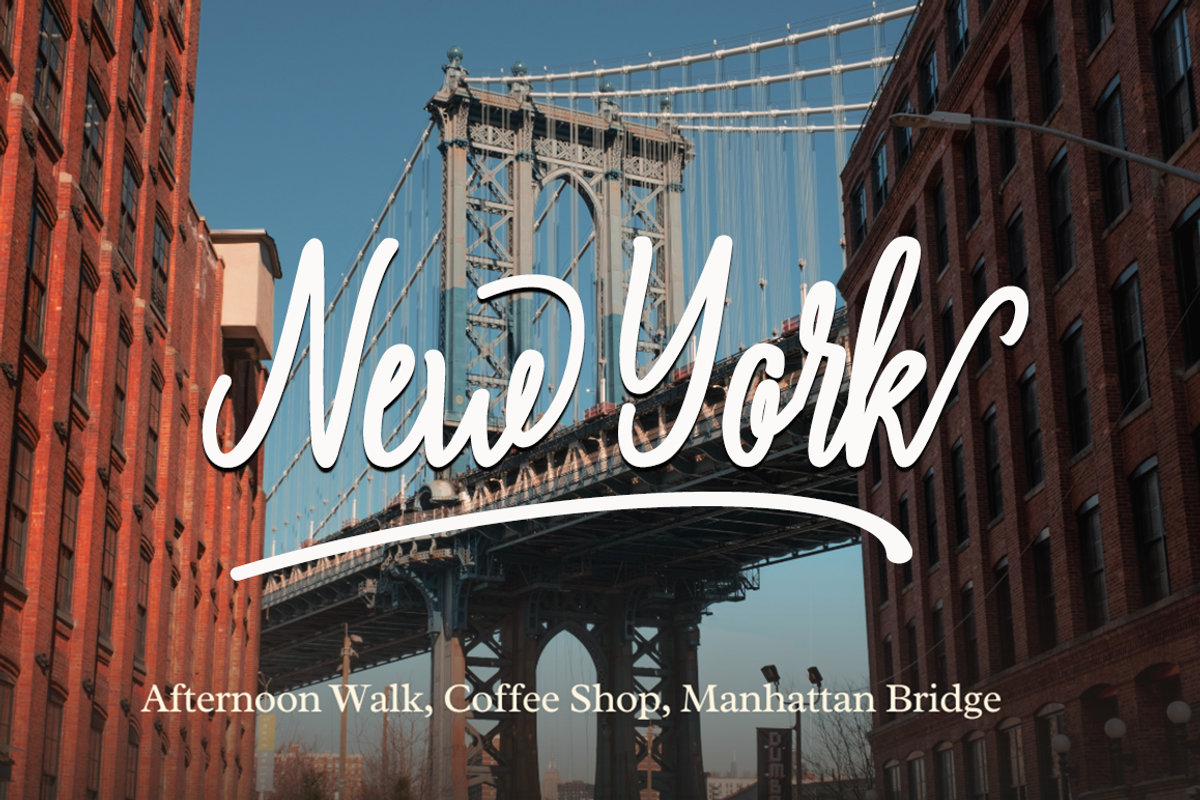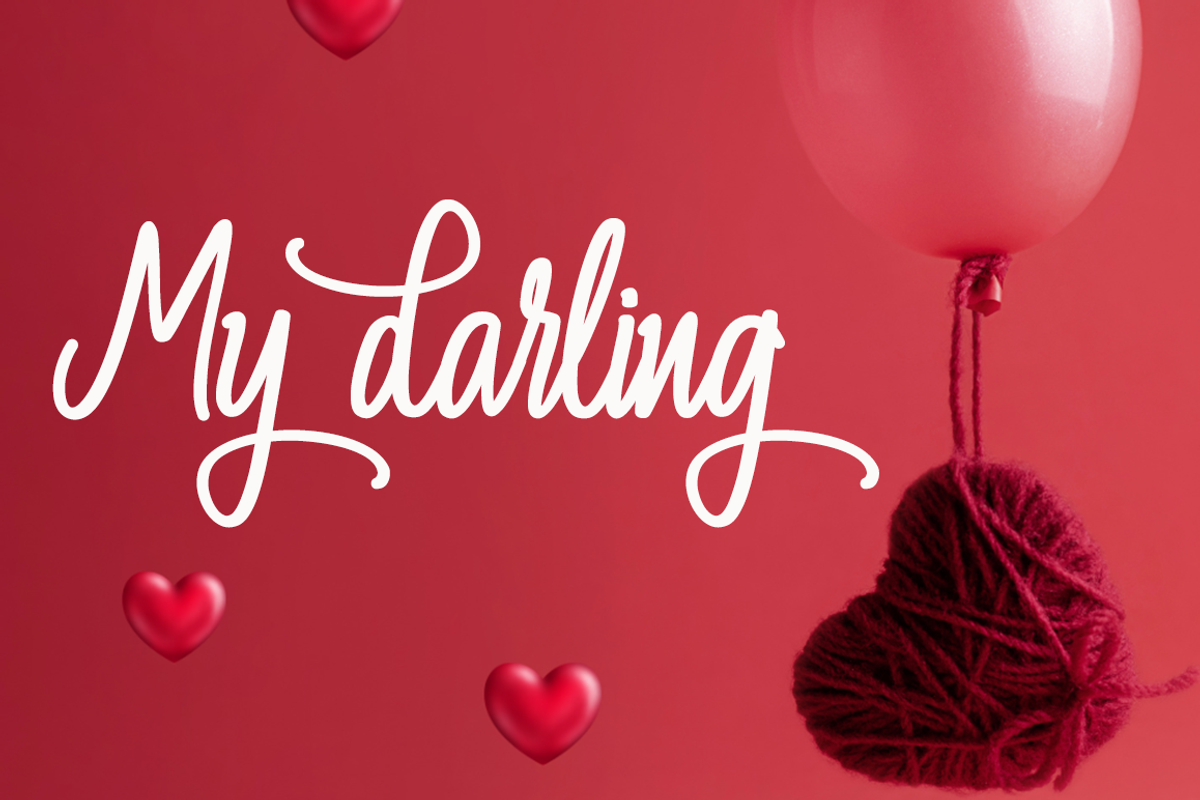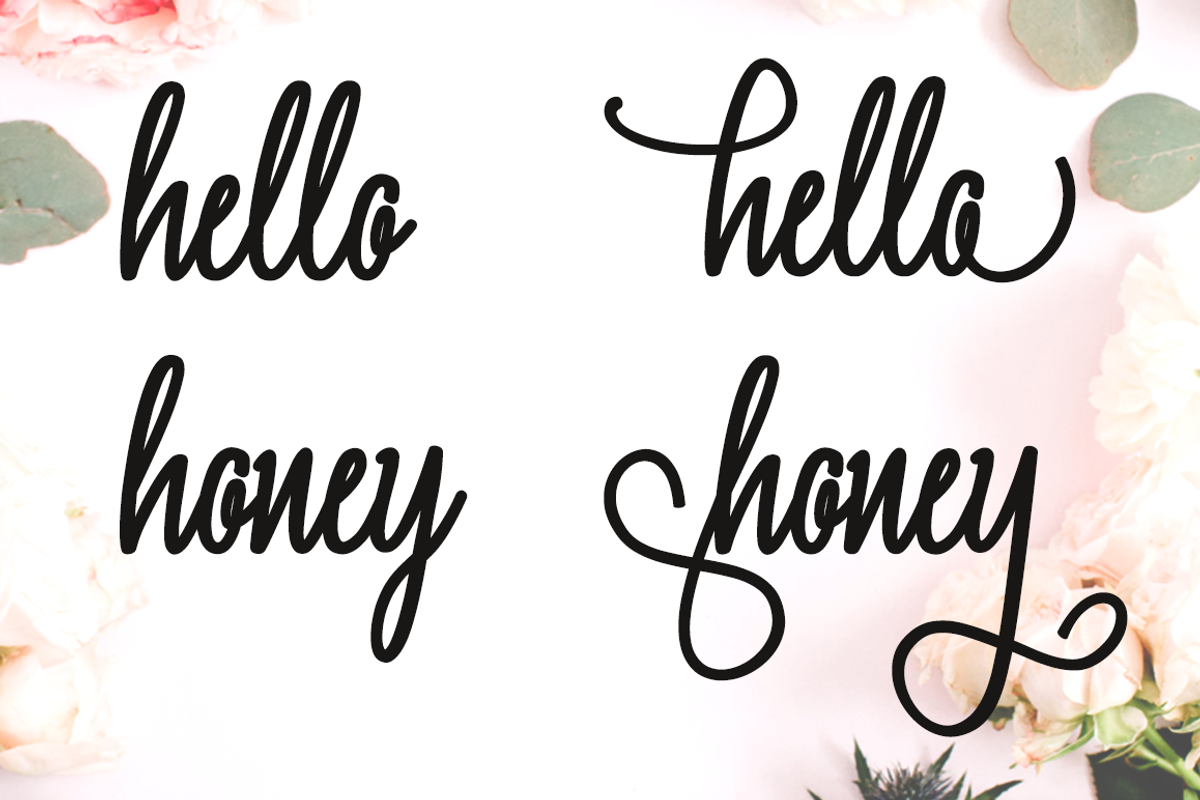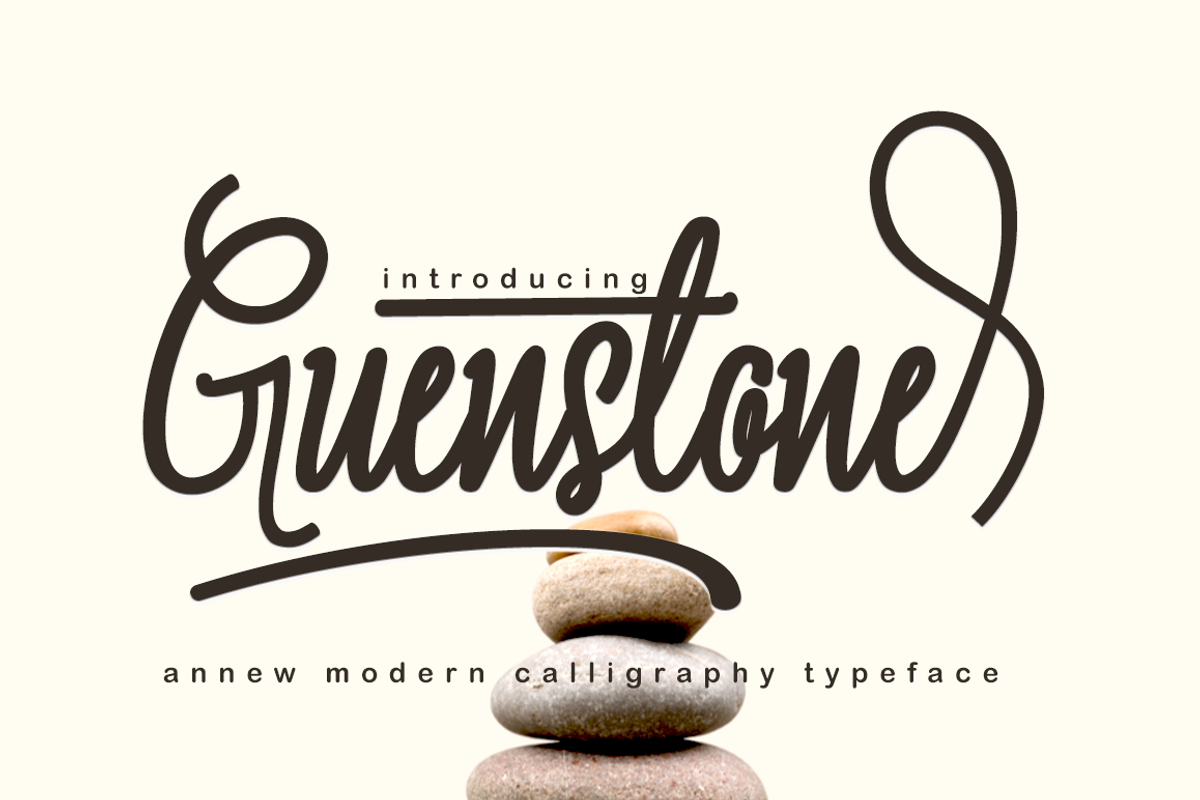
Guenstone
Guenstone Modern Calligraphy. This font was designed by handwriting, and it has a modern and unique forms of calligraphy, the writing style is very natural.
The Features of this fonts is;
Standart ligatures
Contextual Alternates
Stylistic sets